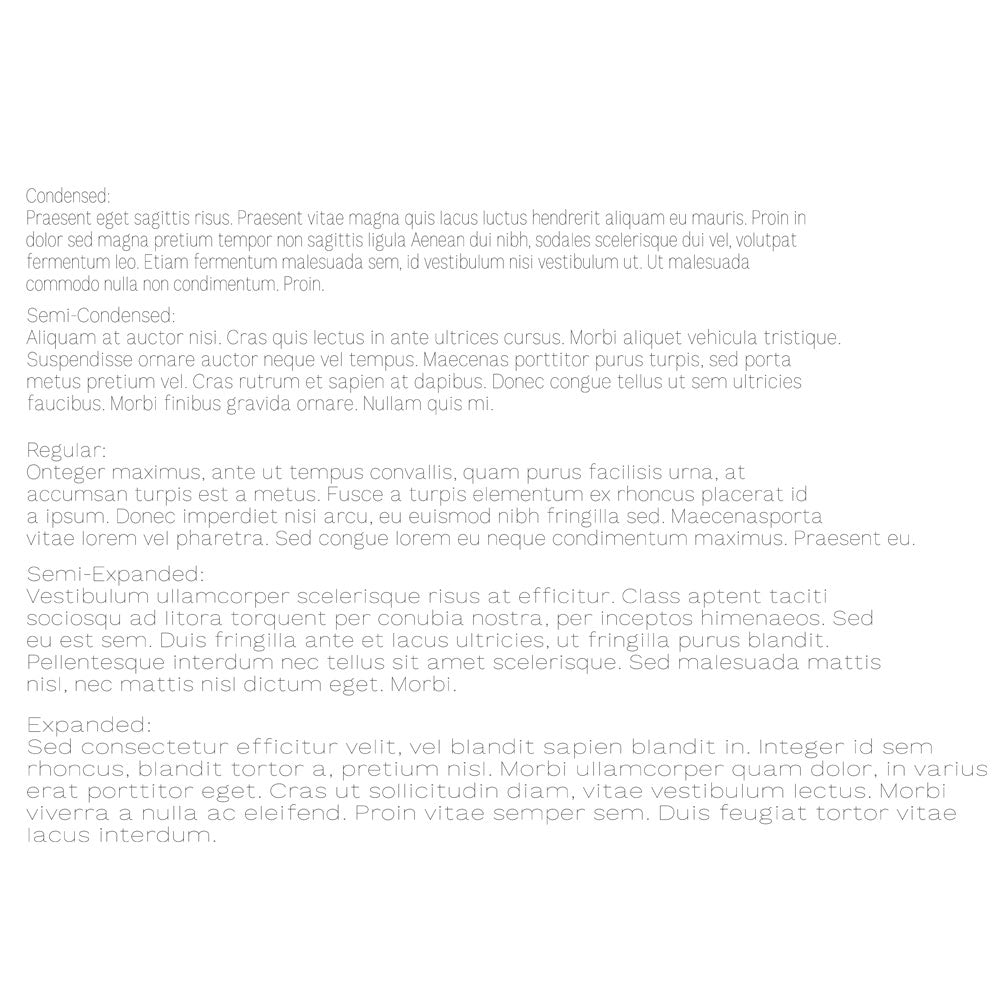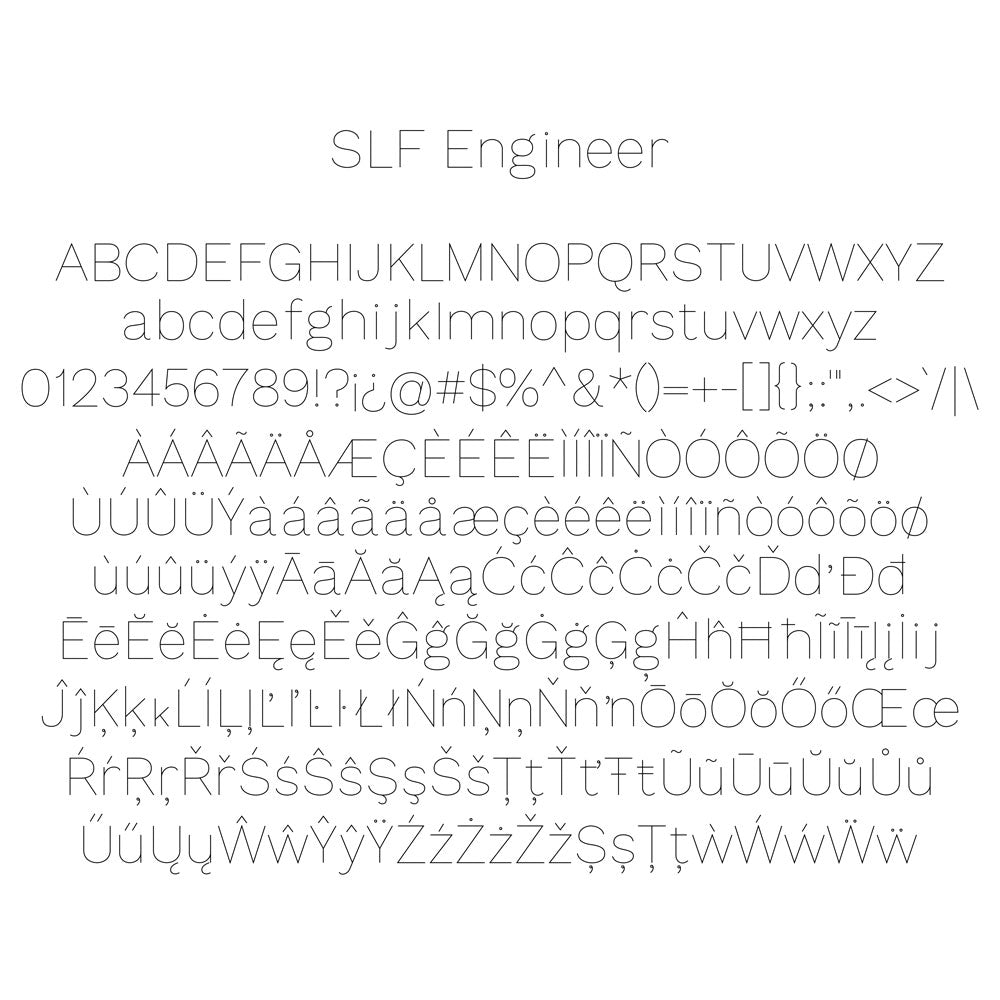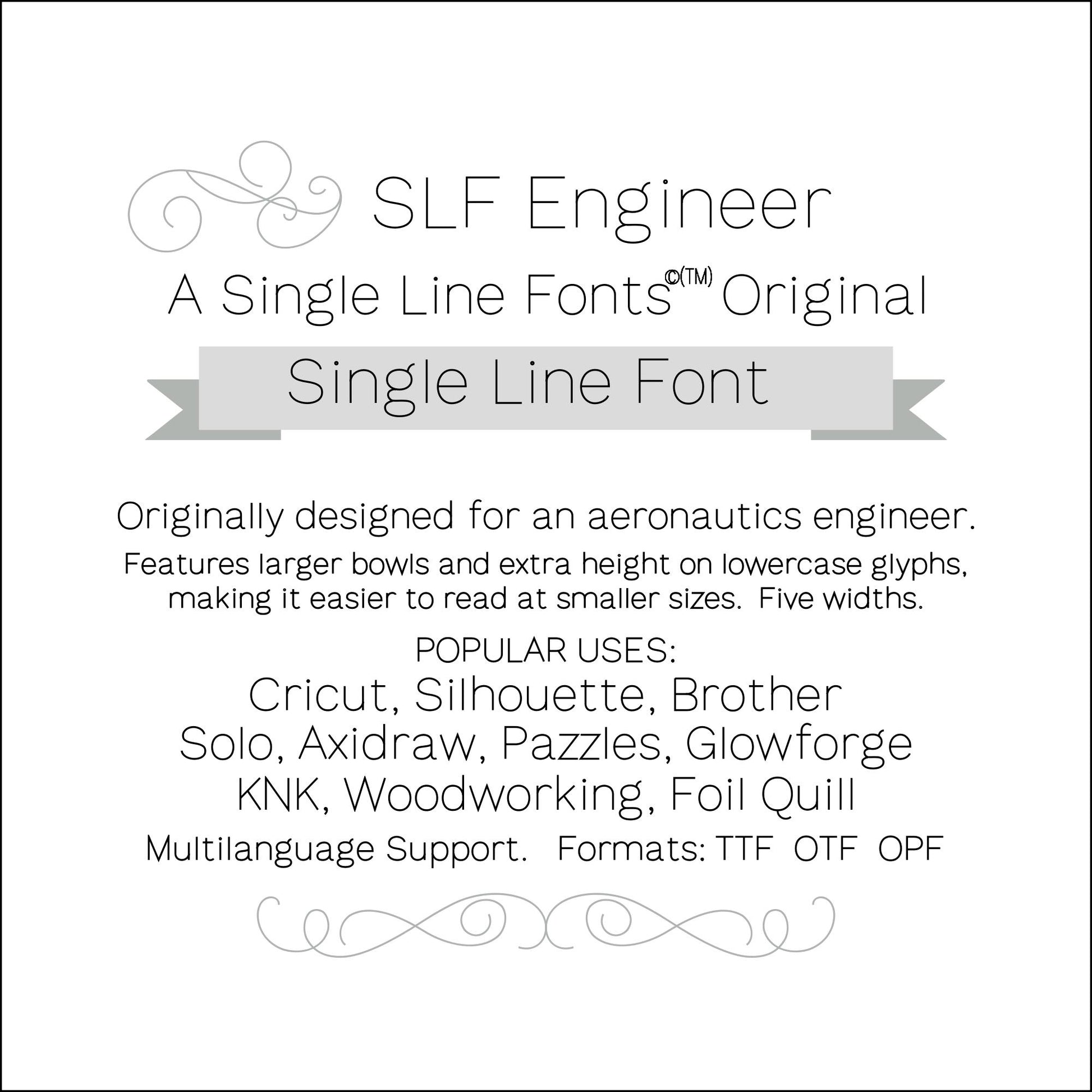
SLF Engineer – Technical Single Line Engraving Font with Five Widths
SLF Engineer is a clean, technical single line print font designed for precision work. This versatile font family includes five width variations, giving you the flexibility to fit text into tight spaces or expand it for clearer layouts.
The five coordinated styles allow you to choose the perfect spacing for your project while maintaining a consistent engineering-style look. It’s ideal for engraving, scoring, CNC routing, pen plotting, and projects that require crisp, highly legible lettering.
Each style includes a complete character set with uppercase and lowercase letters, numbers, punctuation, symbols, and accented characters for multilingual support.